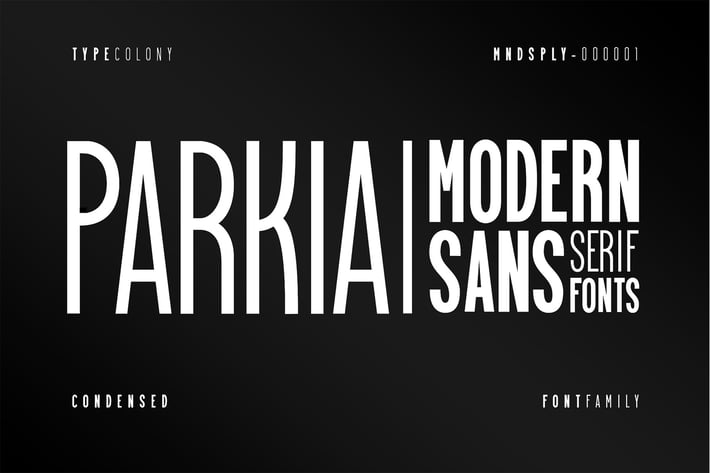
Parkia - Condensed Typeface
Parkia - is a group of sans serif condensed typeface made by Type Colony team to supply industry and corporate needed of strong headline font family for titles, logo, sign system, presentation, and any branding necessary.